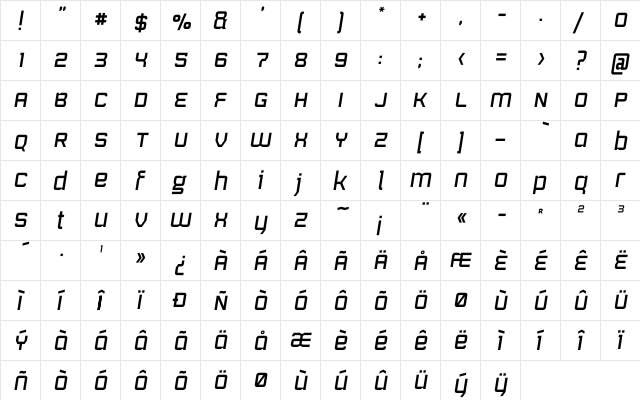
mrh Anton Alt. Oblique
| Designer | Mads Rahbek Hougaard |
Design Context for mrh Anton Alt. Typeface
mrh Anton Alt. takes a measured approach to typography — its balanced proportions and neutral character make it a reliable workhorse for both digital and print work. The slanted form adds forward momentum and visual energy.
Pro Tip: Try mrh Anton Alt. for annotation and caption copy alongside an upright companion — the contrast in angle creates a dynamic but ordered typographic system.